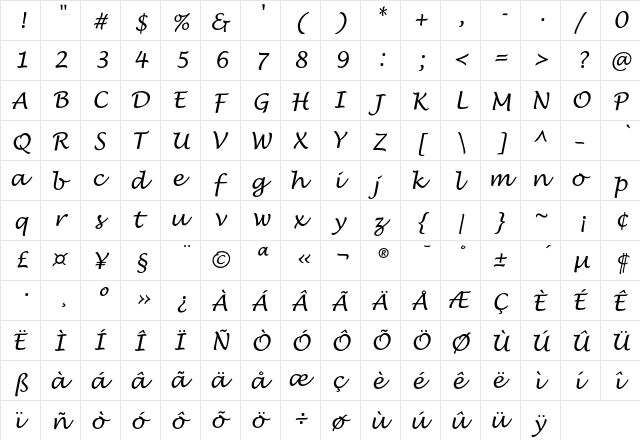
LucidaHandwritingEF Regular
Design Context for LucidaHandwritingEF Typeface
LucidaHandwritingEF flows with the natural rhythm of handwritten lettering, making it ideal for designs that call for warmth and personal expression.
Font Pairing: Combine LucidaHandwritingEF with a simple geometric sans for maximum contrast — the tension between flowing curves and clean structure is a classic typographic pairing.
Pro Tip: Use LucidaHandwritingEF for short runs of text — names, titles, or taglines. Extended body copy in script faces tires the eye quickly.